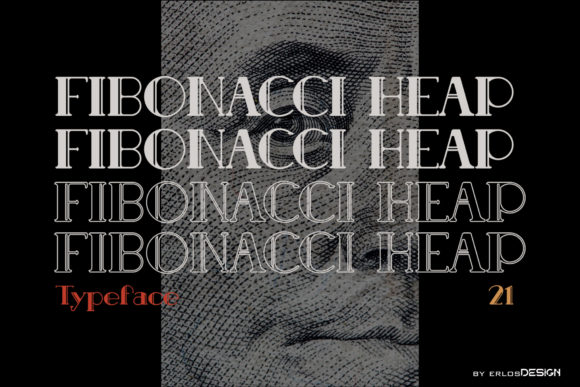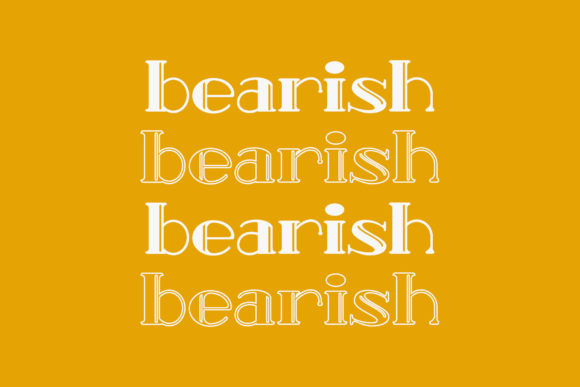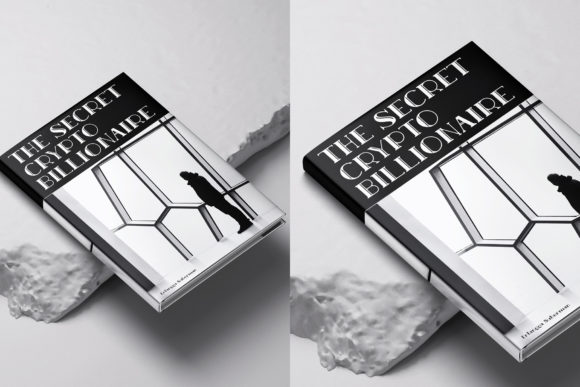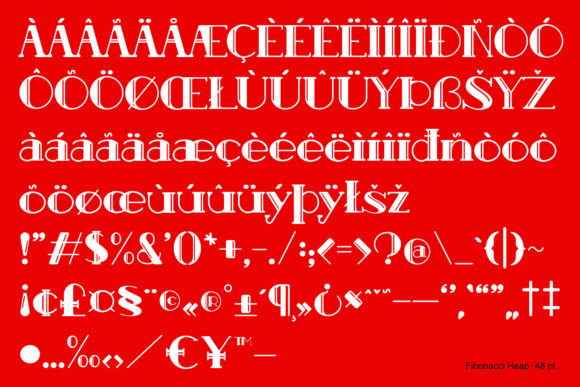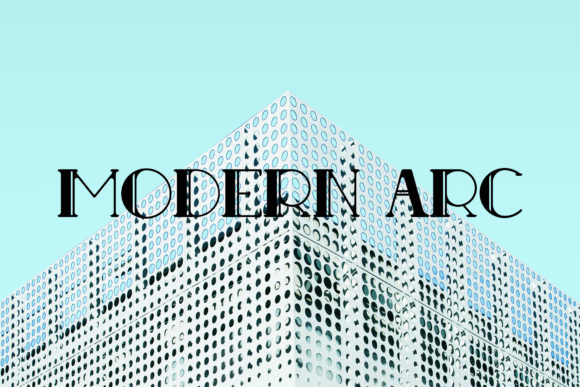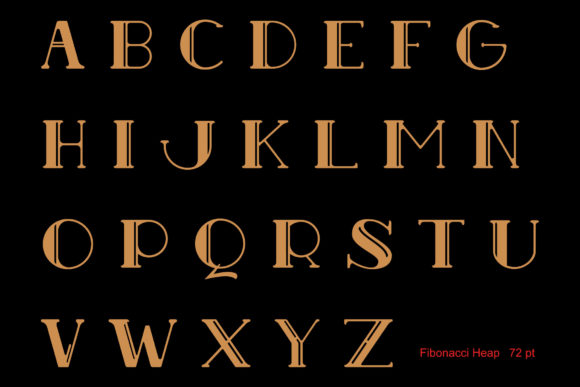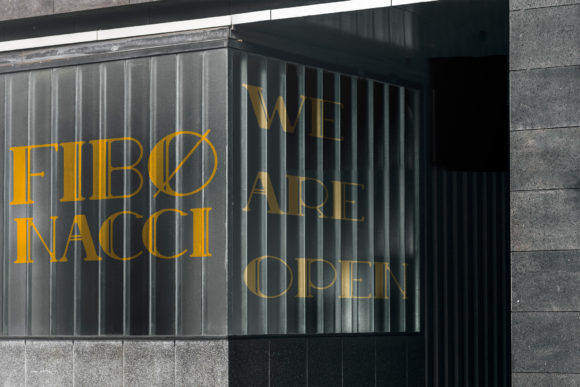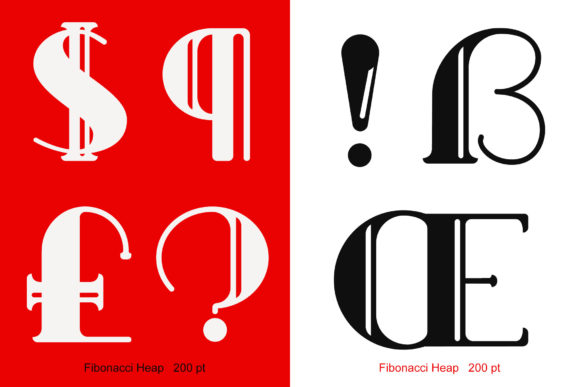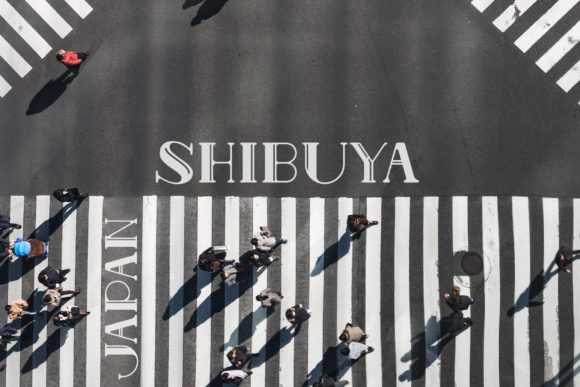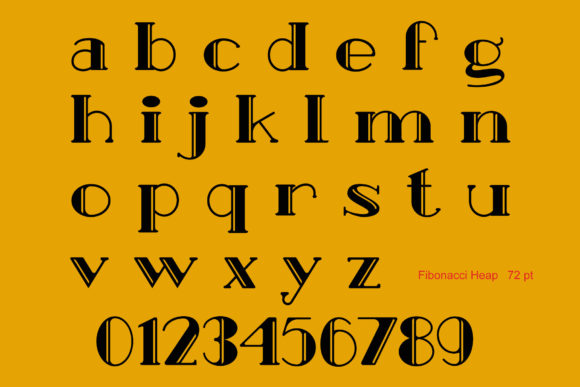
Fibonacci Heap
Fibonacci Heap: A Vintage-Styled and Adaptable Slab Serif Font
Fibonacci Heap is a distinctive slab serif font that combines a vintage aesthetic with adaptable design. This versatile typeface is designed to enhance a wide range of creative projects, making it a confident choice for designers looking to add a touch of nostalgia to their work.
Key Features of Fibonacci Heap
• Vintage Style: Incorporates design elements reminiscent of classic typography, evoking a sense of nostalgia.
• Adaptable Design: Flexible enough to suit various design contexts and projects.
• Slab Serif Structure: Maintains the characteristic thick, rectangular serifs typical of slab serif fonts.
• Versatile Application: Suitable for a wide range of creative projects, from print to digital media.
• Impactful Presence: Designed to create memorable and eye-catching typography.
Ideal Uses for Fibonacci Heap
Fibonacci Heap’s unique characteristics make it particularly well-suited for:
• Vintage-inspired branding and logo design
• Retro-themed poster and advertisement layouts
• Book covers and editorial designs with a classic touch
• Website headers and digital content aimed at creating a nostalgic look
• Packaging design for products aiming for a timeless appearance
When incorporating Fibonacci Heap into your designs, consider the following tips:
• Use for both headlines and short blocks of text to showcase its vintage charm
• Experiment with different sizes to highlight the font’s adaptable nature
• Consider pairing with complementary sans-serif fonts for body text to create contrast
• Take advantage of its versatility across various themes and styles in your projects
Fibonacci Heap is an excellent choice for designers looking to add a vintage-styled and adaptable slab serif font to their typographic toolkit. Its ability to enhance various design projects makes it stand out in the world of typography. Whether you’re working on logo designs, creating layouts for retro-themed projects, or developing content that requires a touch of nostalgia, Fibonacci Heap offers the perfect blend of vintage charm and adaptability.
Add Fibonacci Heap confidently to your favorite creations and prepare to be amazed by the outcomes it generates. From striking headlines to engaging branding elements, this font provides the tools to create impactful and memorable typography that resonates with audiences seeking a touch of vintage elegance in modern design. It’s versatile enough to be used in various contexts, from vintage-inspired designs to cute and friendly layouts.
Whether you’re creating a magical and mysterious atmosphere or aiming for a more thoughtful and introspective mood, Fibonacci Heap can adapt to your needs. Its flexibility allows it to work well in both rustic, vintage-style projects and holiday-themed designs. For those looking to add a touch of nostalgia to their work, this font can even complement vintage Christmas-inspired creations.